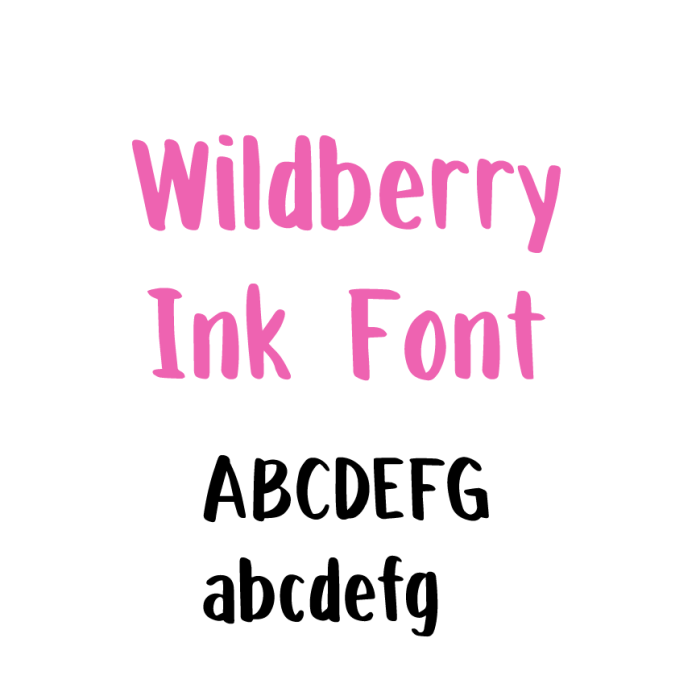
Introducing Wildberry Ink, a lively brush-lettered font bursting with personality! With its fluid strokes, organic texture, and hand-painted charm, this font brings a playful yet artistic touch to any project. Perfect for branding, quotes, invitations, packaging, and more, Wildberry Ink captures the beauty of handcrafted lettering with effortless style. Its natural brush details add warmth and energy, making your designs feel bold, expressive, and full of life. Whether you're crafting something whimsical or elegant, this font is your go-to for a fresh, artistic flair. Add Wildberry Ink to your collection today and let your creativity flow!